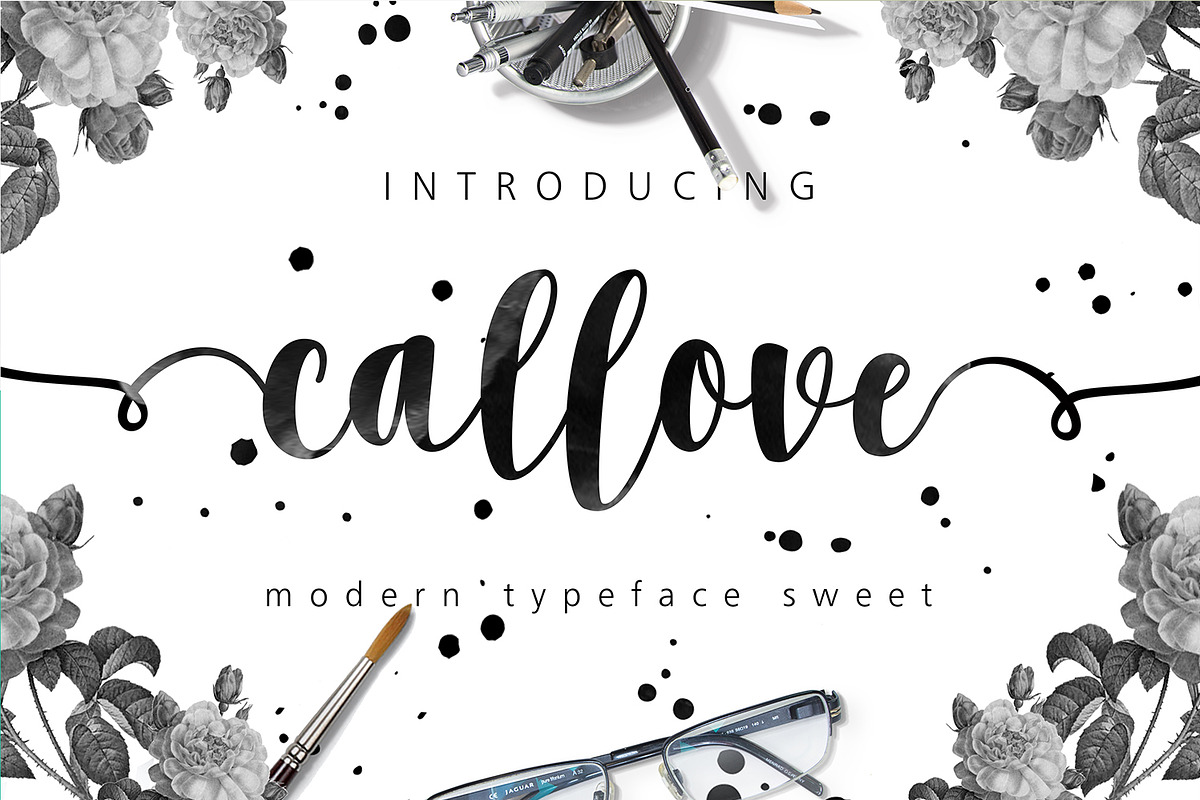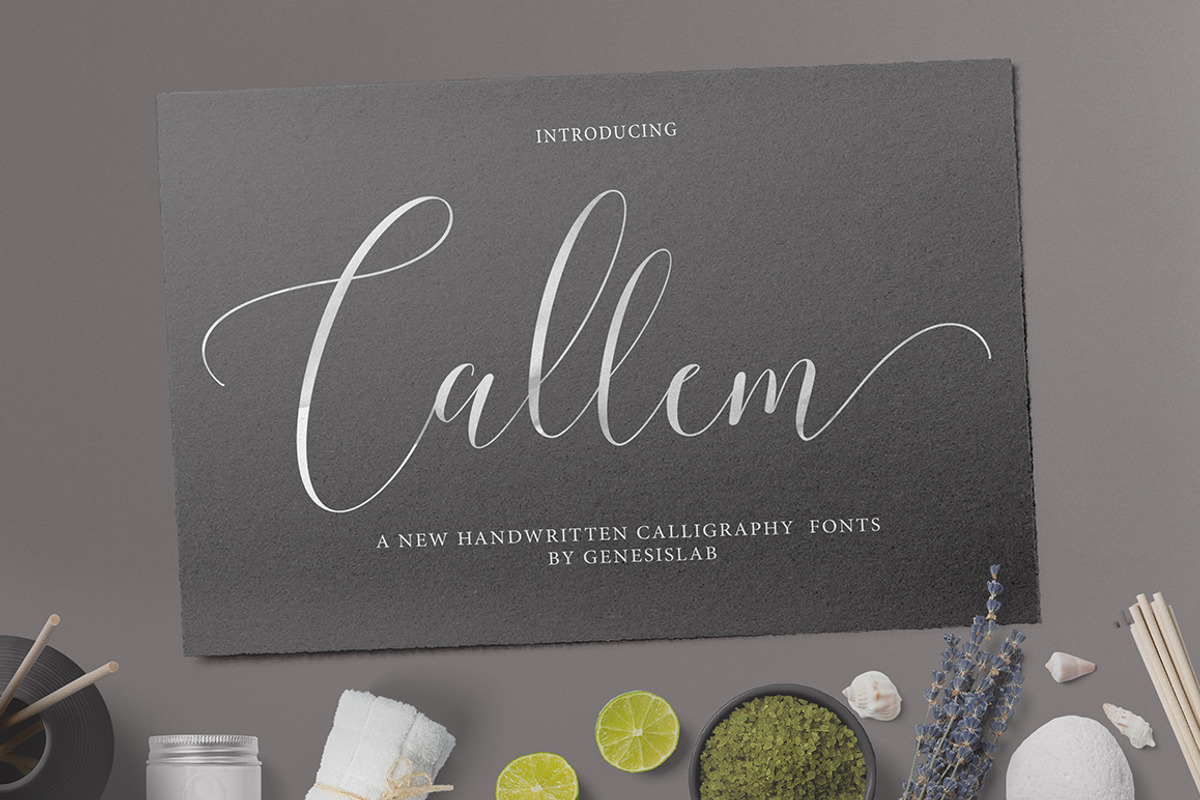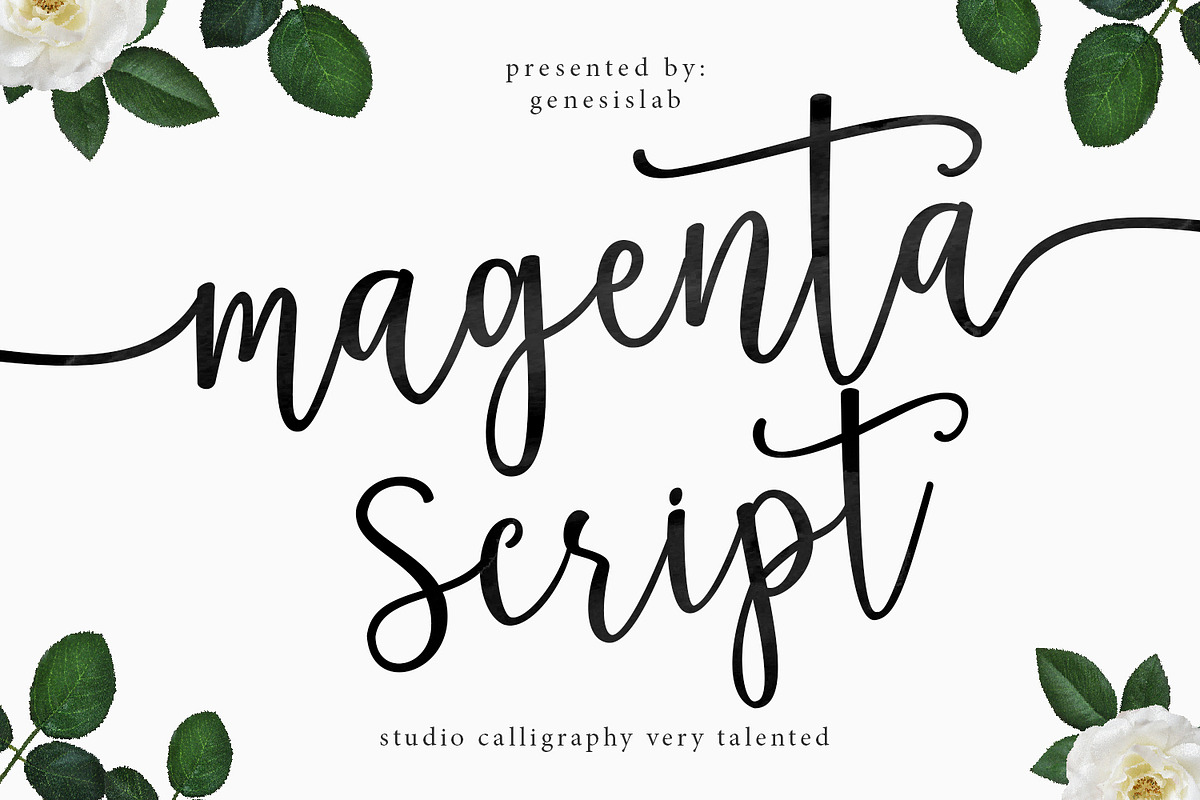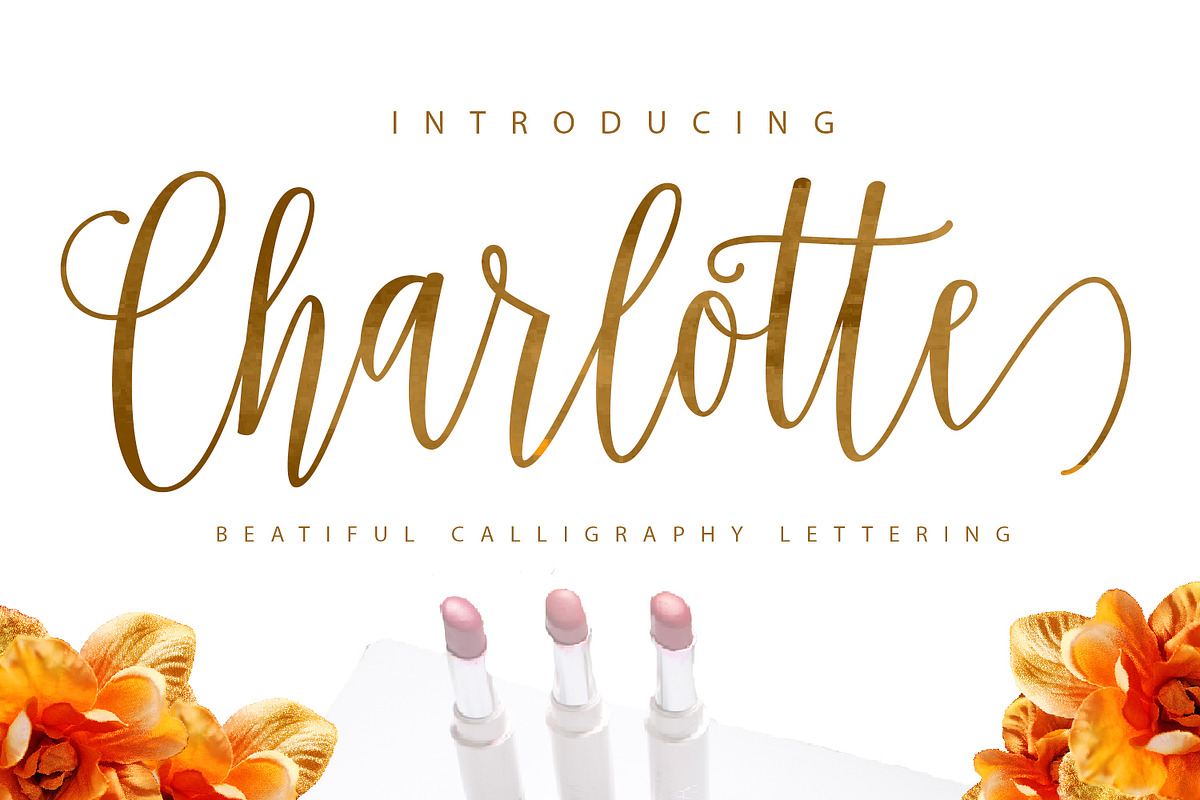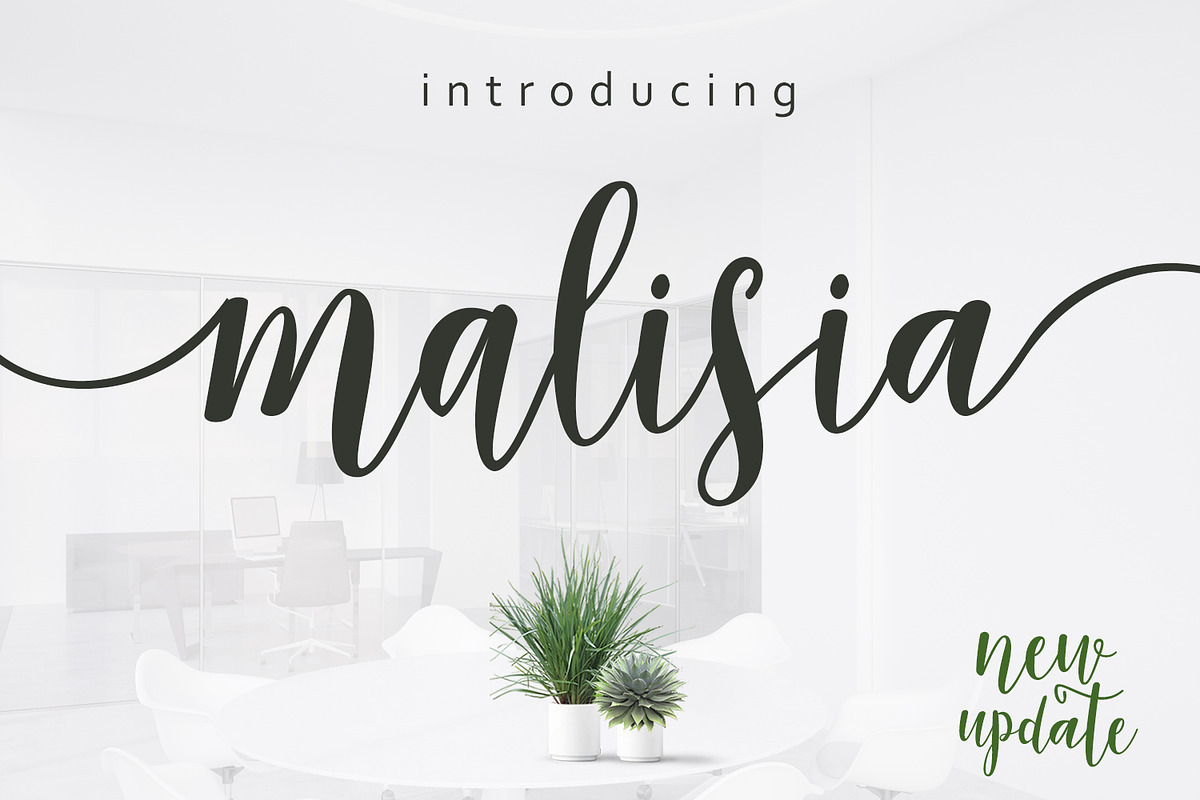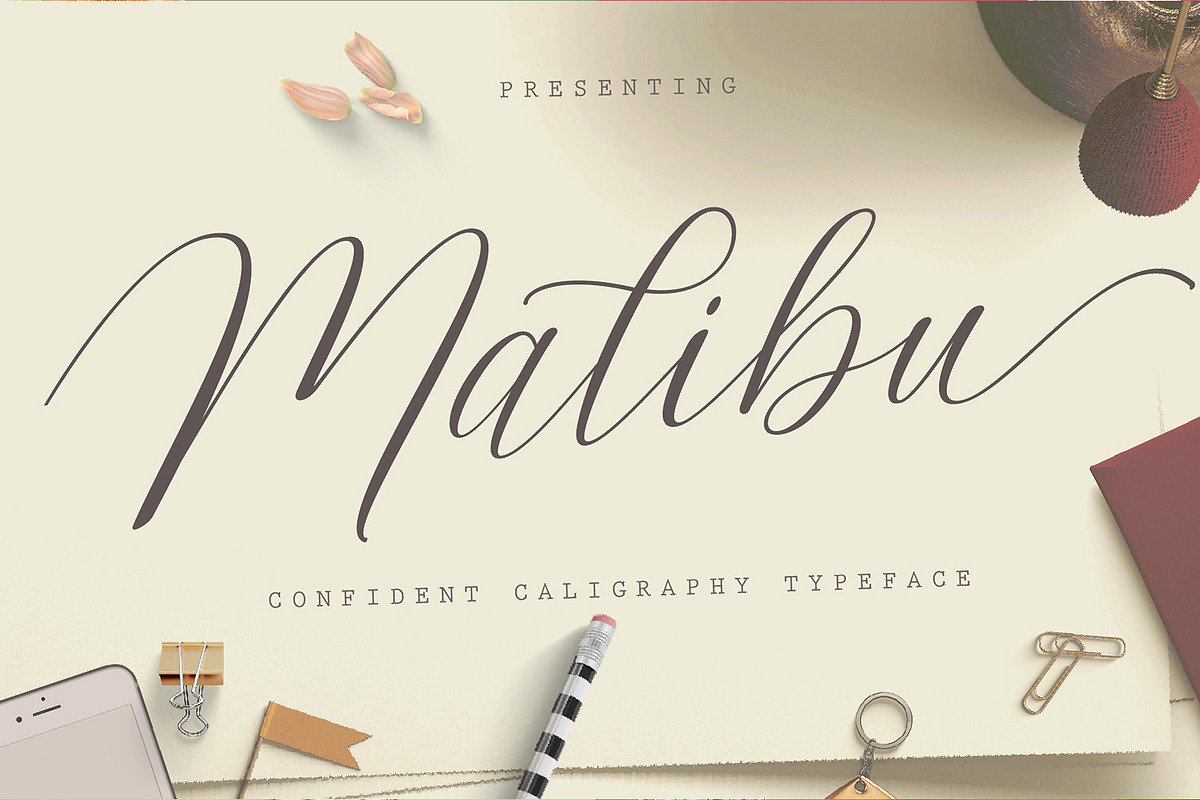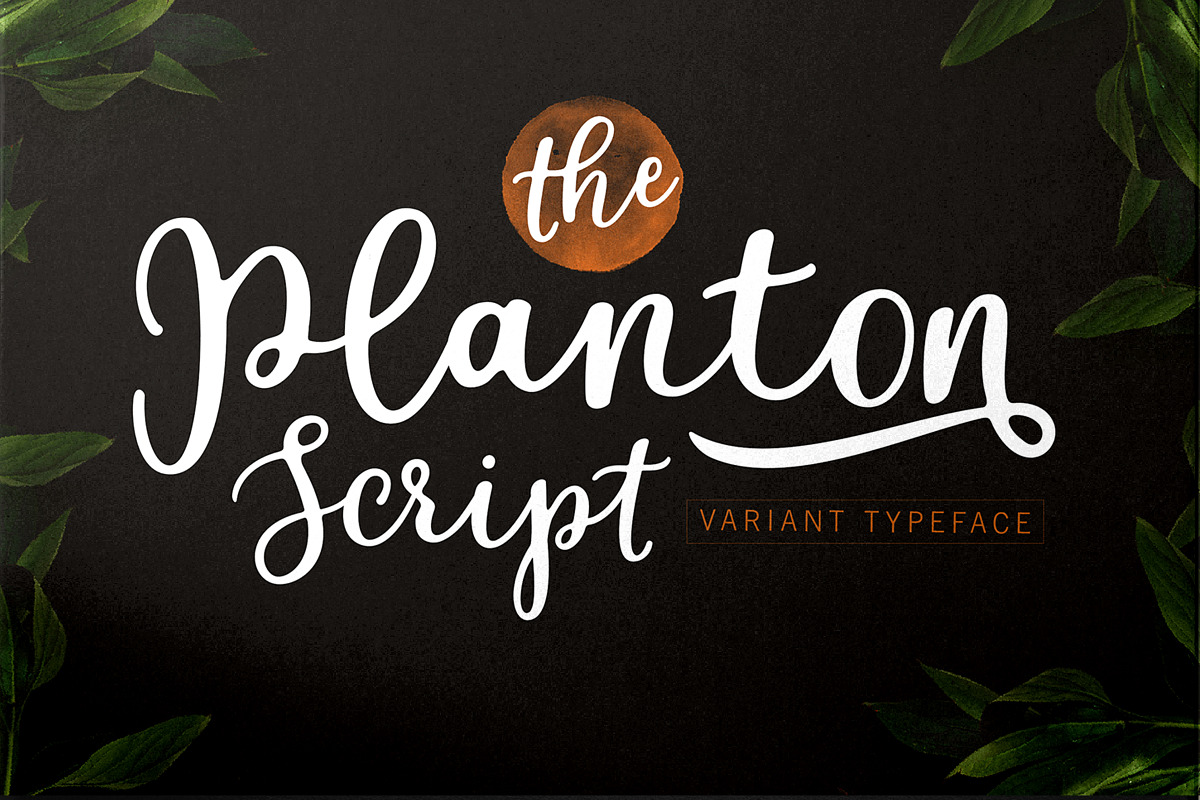
Let's get now the Collection Package Calligrapher's provides. the latest collection to be able to collaborate perfectly
design forms such as wedding invitations, signatures, letterhead, logos, T-shirts, and everything in between.
The Handlettering Manuscript is a scratch font calligraphy pen. available in many versions you will find 44 different font types in this bundle. Extras included
everything from style, Swash, Set Stylistic, Substitute Style, and ligature and multilingual!
With many OpenType features available, you can mix and match styles to make the job you want. suitable for social media promotion, titles, signatures, logos, weddings
. Charlotte Script: .
. Cherry Blossom Script:
. Wonder She Script: .
. Wall Palace Script:
Calligrapher's Font Bundle (98%Off) by Genesis Lab fits naturally into Branding, posters, packaging, typography.